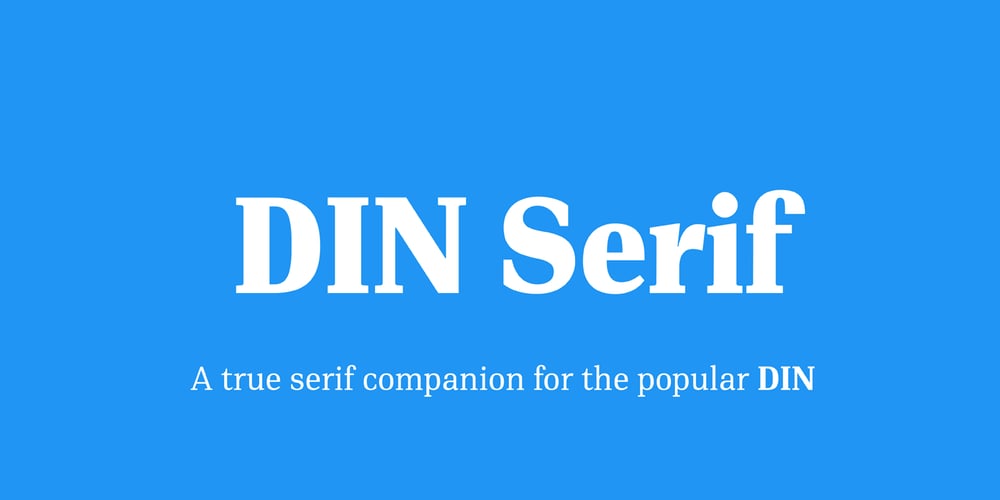
PF DIN Serif Font Family was designed by Panos Vassiliou and published by Parachute. PF DIN Serif contains 10 styles and family package options. DIN Serif: Specimen Manual PDF The DIN Type System: A Comparison Table This is the first ever release of a true serif companion for the popular DIN typeface. DIN Serif originated in a custom project for a watchmaking journal which required a modern serif to work in unison and match the inherent simplicity of DIN. As a result, a solid, confident and well-balanced typeface was developed which is simple and neutral enough when set at small sizes, but sturdy and powerful when set at heavier weights and bigger sizes. It utilizes the skeleton of the original DIN and retains its basic proportions such as x-height, caps height and descenders, whereas ascenders were slightly increased. DIN Serif makes no attempt to impress with ephemeral nifty details on individual letters, but instead it concentrates on a few modern, functional and everlasting novelties which express an overall distinct quality on the page and set it apart from most classic romans. This is a low contrast typeface with vertical axis and squarish form which brings out a balance between simplicity and legibility. Its narrow proportions offer economy of space which is critical for newspaper body text and headlines. At small sizes the text has an even texture, it is comfortable and highly readable. The serifs are narrow at heavy weights and when tight typesetting is applied at large sizes, the heavier weights become ideal for headlines. DIN Serif was inspired by late 19th century Egyptian and earlier transitional roman faces. Bracketed serifs were placed on the upper part of the letterforms (this is where we mostly concentrate our attention when we read) whereas small clean square serifs were placed on and under the baseline to simplify the letterforms. In order to reduce visual tension at the joins and make reading smooth and comfortable, a slight hint of bracketed serif was added at the joins in the form of a subtle angular tapered serif, which softens the harsh angularity. These angular tapered serifs tend to disappear at smaller sizes (or smooth out the joins) but stand out at bigger sizes exuding a strong, modern and energetic personality. What started out as a custom 2 weight family, it has developed into a full scale superfamily with 10 styles from Regular to ExtraBlack along with their italics. Additional features were added such as small caps, alternate letters and numbers as well as numerous symbols for branding, signage and publishing. All weights were meticulously hinted for excellent display performance on the web. Finally, DIN Serif supports more that 100 languages such as those based on the Latin, Greek and Cyrillic alphabet.